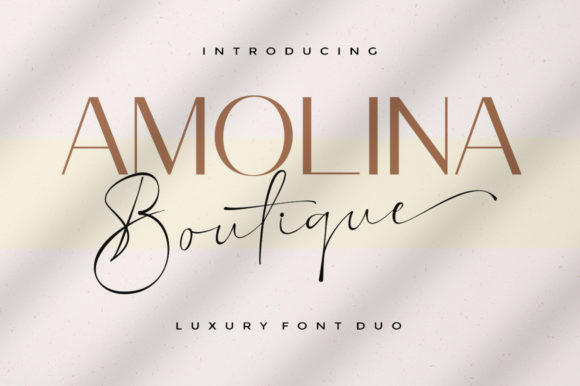
Introducing Amolina Boutique Font, a captivating duo font that will instantly transform your creative projects into mesmerizing works of art. With its stunning combination of sans serif and script, this font family is a must-have for any design enthusiast or professional.
Created by the talented team at LetterFreshStudio, Amolina Boutique Font is the perfect choice for those seeking a font that stands out from the crowd. Its unique and eye-catching design will instantly grab the attention of your audience, making your projects truly unforgettable.
Whether you're looking to create stunning labels, captivating logos, or elegant wedding invitations, Amolina Boutique Font has got you covered. Its versatility knows no bounds, allowing you to explore endless possibilities and bring your creative vision to life.
But what sets Amolina Boutique Font apart from the rest? It's not just its remarkable aesthetics, but also its ability to evoke emotions and tell a story. Each letter is meticulously crafted to convey a sense of elegance, sophistication, and charm.
Imagine the impact of using Amolina Boutique Font on your product labels. The font gracefully dances across the packaging, instantly elevating your brand and creating a lasting impression on your customers. With this font, your products will not only stand out on the shelves but also in the hearts and minds of your target audience.
For those in the world of graphic design, Amolina Boutique Font is a game-changer. Its versatility allows you to experiment with various styles and create visually stunning compositions. From modern and edgy to timeless and classic, this font effortlessly adapts to any project, leaving your clients in awe.
But it's not just about aesthetics. Amolina Boutique Font also delivers on functionality. Its clean and legible design ensures that your message is conveyed clearly, without sacrificing style. Whether it's a bold headline or a delicate script, this font ensures that your words are not only heard but also felt.
In a world where first impressions matter, Amolina Boutique Font is your secret weapon. Its captivating beauty and emotional power will leave a lasting impression on your audience, setting you apart from the competition. So why settle for ordinary when you can have extraordinary?